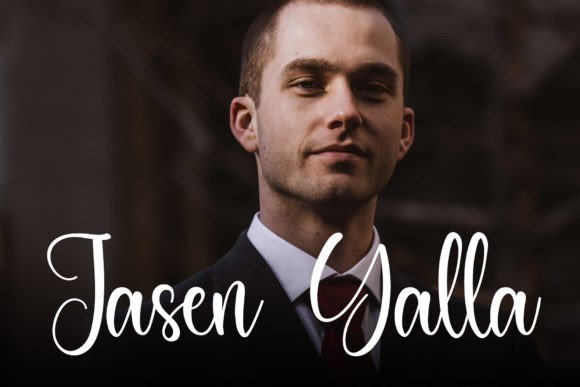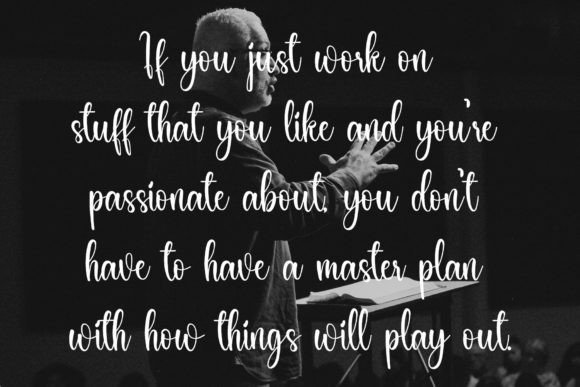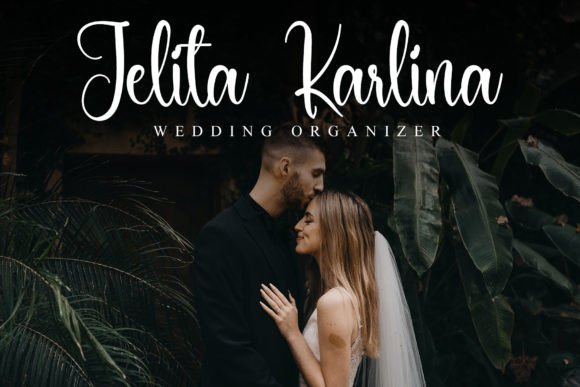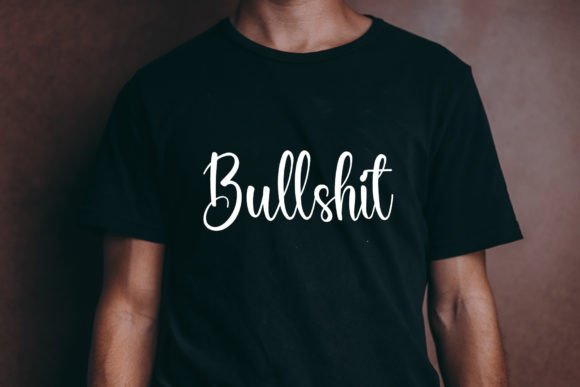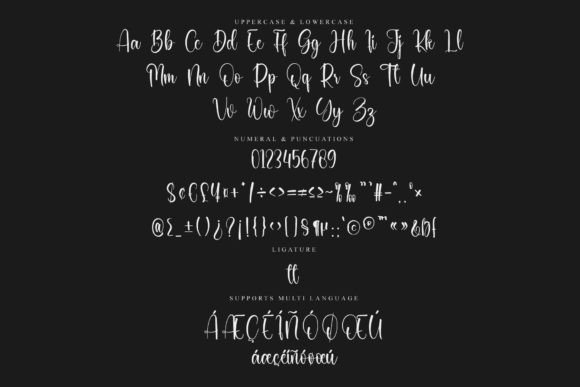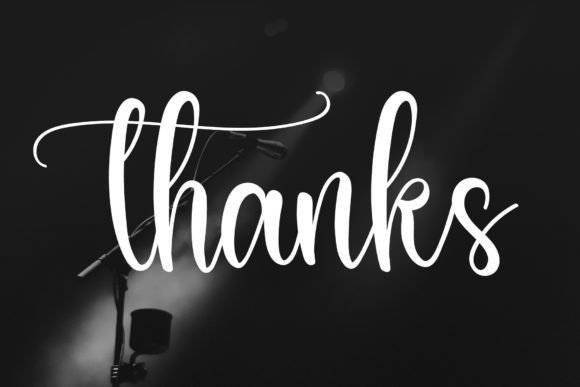
Bathing Font: Elevate Your Designs with a Stylish and Dainty Script
In the world of design, fonts play a crucial role in conveying the tone and aesthetic of a project. For those seeking a touch of elegance and sophistication, the Bathing Font is an excellent choice. This stylish and dainty script font is perfect for a variety of projects, from logos and branding to labels, photography, and more.
What Makes Bathing Font Special?
Bathing Font stands out with its beautiful script style, ideal for designers and crafters looking to add a touch of refinement to their work. Its versatility makes it suitable for numerous applications, including:
- Logos: Create a lasting impression with a unique and stylish logo.
- Branding projects: Establish your brand’s identity with a font that exudes elegance.
- Labels: Add a personal touch to your products or packaging.
- Photography: Use it for watermarks or overlay text to give your photos a distinctive look.
- Special events: Make invitations, programs, or other materials stand out.
- Other lovely projects: Any creative endeavor that calls for a beautiful script font.
One of the key features of Bathing Font is its PUA (Private Use Area) encoding. This means that users can easily access all the glyphs and swashes, allowing for greater flexibility and creativity in design. PUA encoding ensures that you can:
- Access a wide range of characters and swashes.
- Customize your text with ease.
- Create unique and intricate designs.
Why Choose Bathing Font?
For designers and crafters, finding the right font can be a challenge. Here are a few reasons why Bathing Font should be at the top of your list:
- Elegance and sophistication: It adds a touch of class to any project.
- Versatility: Suitable for a wide range of applications.
- Easy to use: PUA encoding makes accessing glyphs and swashes straightforward.
- Unique designs: Stand out from the crowd with a font that’s both stylish and distinctive.
Tips for Using Bathing Font
To get the most out of Bathing Font, consider the following tips:
- Pair it with other fonts: Combine Bathing Font with complementary fonts for a layered look.
- Experiment with sizes and colors: Play around with different sizes and colors to find the perfect combination for your project.
- Utilize swashes and glyphs: Take advantage of the PUA encoding to add intricate details and personality to your designs.
Bathing Font is a beautiful and versatile script font that can elevate any design project. Its stylish and dainty aesthetic, combined with PUA encoding for easy access to glyphs and swashes, makes it an excellent choice for designers and crafters. Whether you’re working on a logo, branding project, or any other creative endeavor, Bathing Font is sure to add a touch of elegance and sophistication.